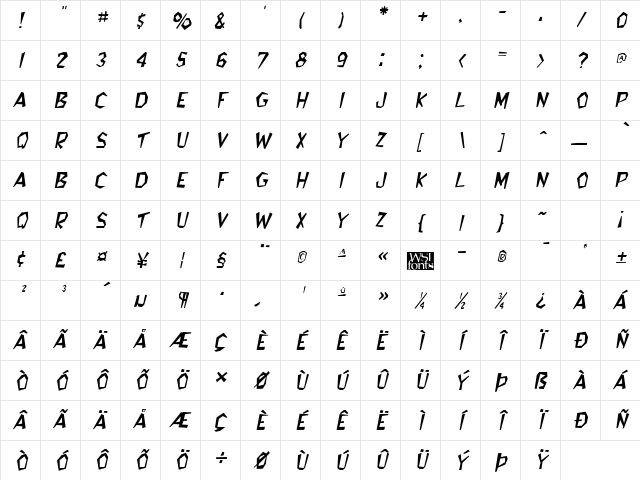
Bedrock Italic
Design Context for Bedrock
Bedrock is a composed and adaptable typeface that performs quietly and consistently across a wide range of design contexts. The slanted form adds forward momentum and visual energy.
Pro Tip: Use Bedrock for emphasis, pull quotes, and subheadings where its slanted energy can add rhythm to the layout.